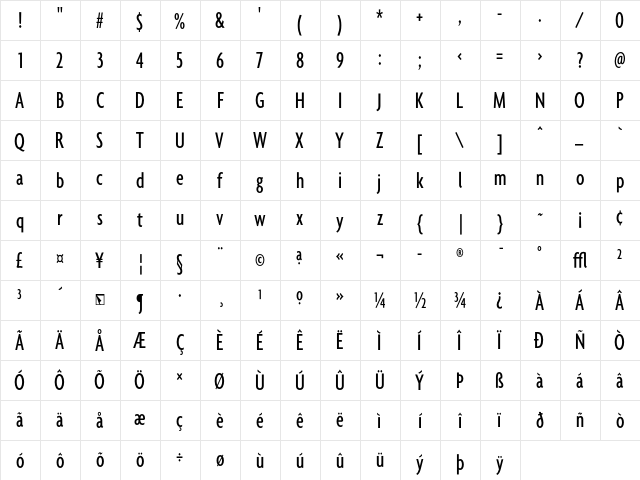
Agenda MediumExtraCondensed Font Preview
Agenda MediumExtraCondensed
Agenda MediumExtraCondensed Font Details
| Style | MediumExtraCondensed |
| Foundry | Greg Thompson. Agenda is a Trademark of Greg Thompson. Produced by The Font Bureau, Inc |
Design Context for Agenda Typeface
Agenda offers clean, dependable letterforms without strong stylistic allegiance, making it a practical choice for designers who need flexibility. Its narrow stance lets it pack a punch even in space-constrained designs.